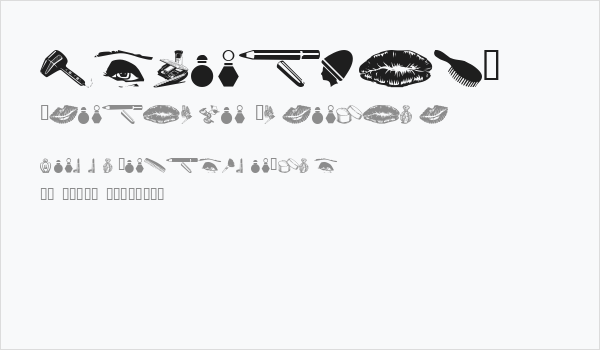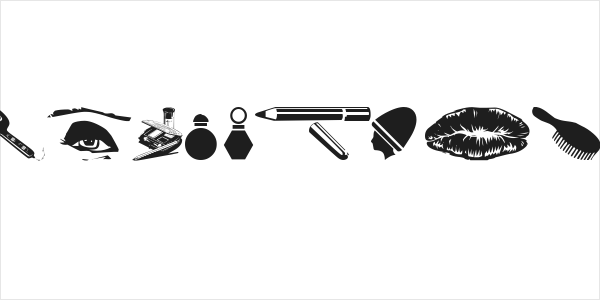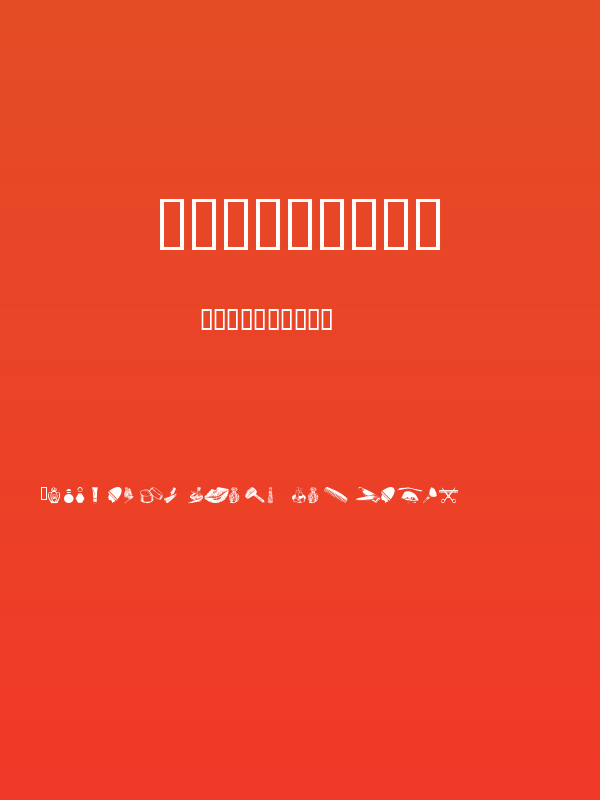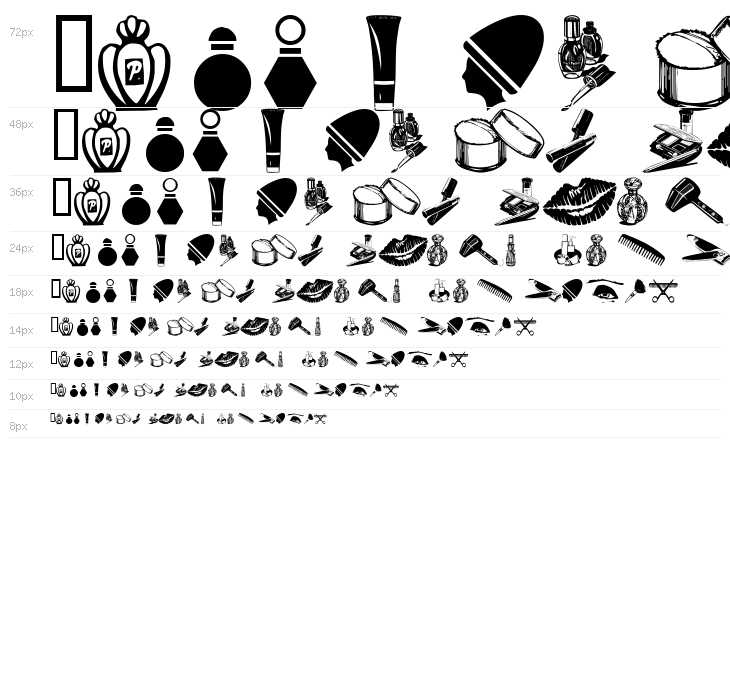
wmbeauty1 Font
A decorative dingbat font featuring various beauty and cosmetic-themed icons such as makeup brushes, lipstick, perfume bottles, lips, scissors, combs, and other related items. Each character is represented by a unique beauty-related illustration.
Use CaseLogos, Icons, Decorative elements
Proposed ProjectsBeauty salon branding, cosmetic product packaging, spa menus, promotional materials for beauty events, social media graphics.